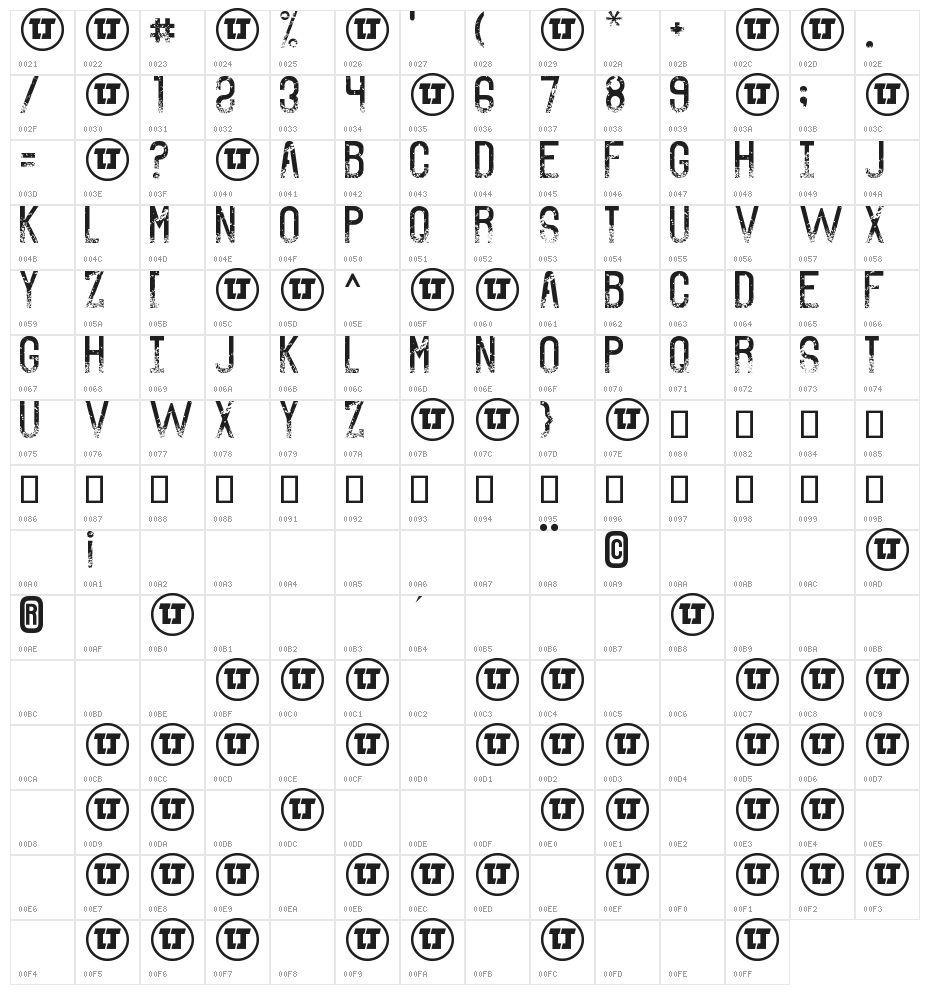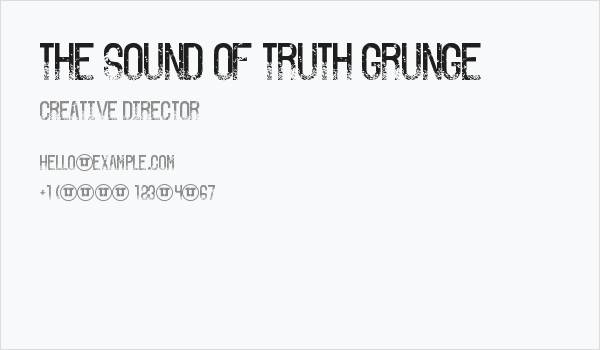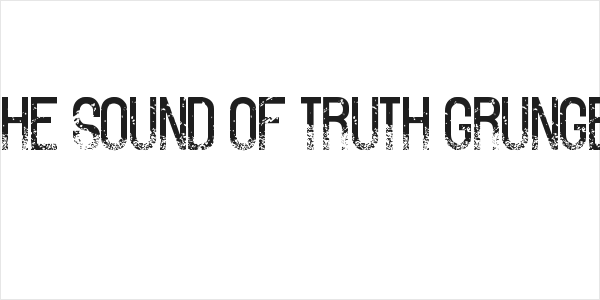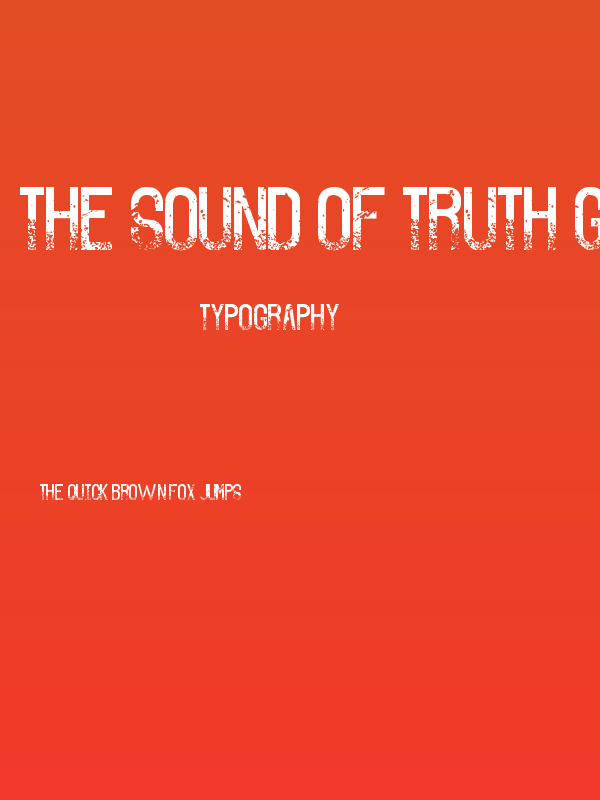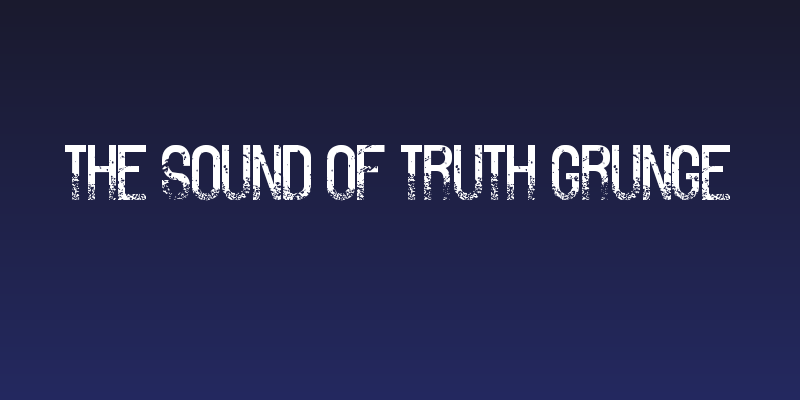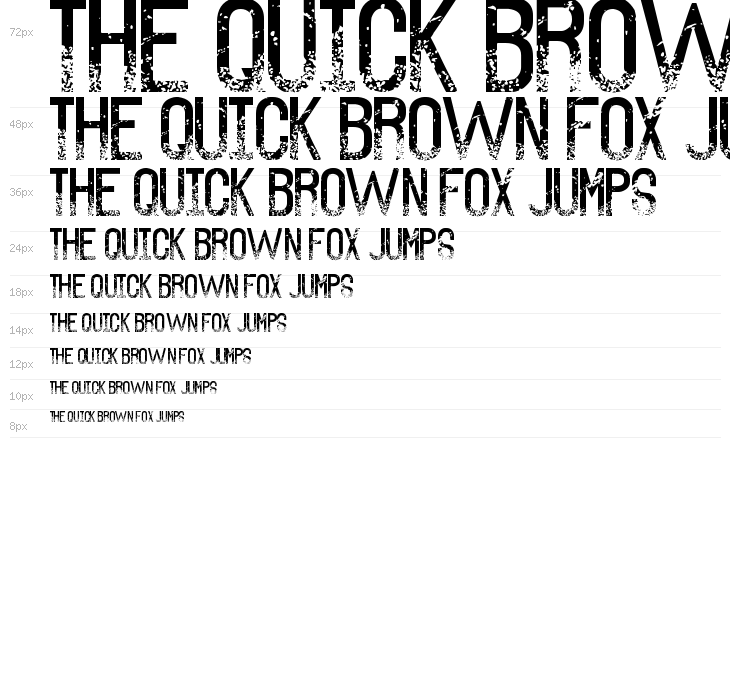
The Sound of Truth Grunge Font
The Sound of Truth Grunge Description
This font features a bold, distressed style with a grunge aesthetic. The characters are uppercase and have a rough, textured appearance, giving them a worn and edgy look. The design incorporates irregularities and imperfections, adding to its raw and urban feel. The font is highly impactful and visually striking, making it suitable for projects that require a strong, rebellious, or alternative vibe. Its unique style is reminiscent of street art and underground culture, making it ideal for creative and unconventional designs.
| Overall Style | Grunge, Urban, Edgy |
| Proposed Projects | Album covers, posters, streetwear branding, skateboarding graphics, and alternative event flyers. |